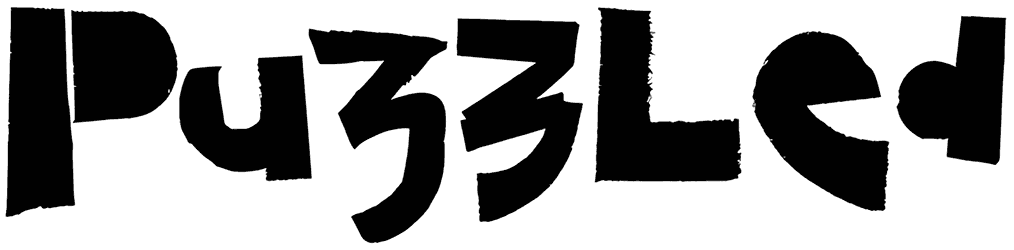
Puzzled Font
There are lots of ways to make your content interesting, and one of them is to give it an unusual font like Puzzled. This silly font bugs the reader’s mind with its uncommon design, and that’s what makes it interesting.